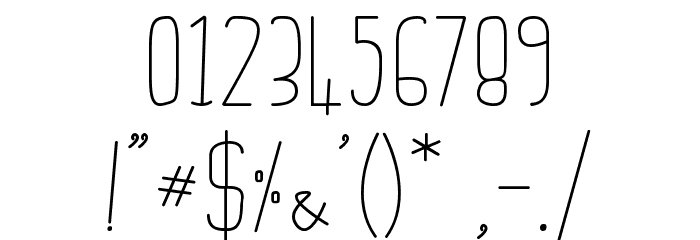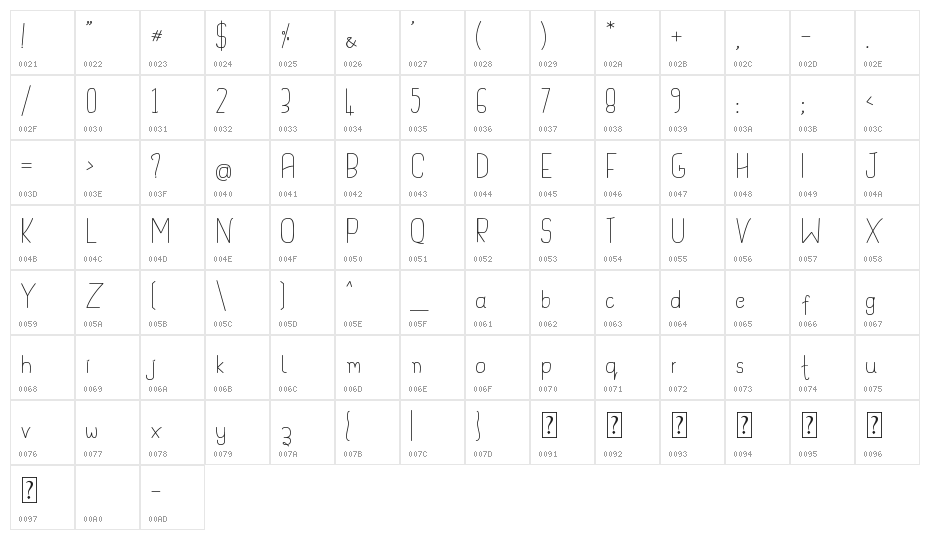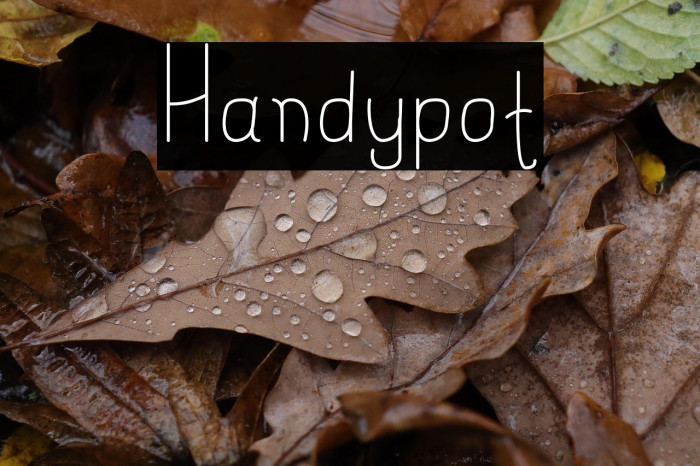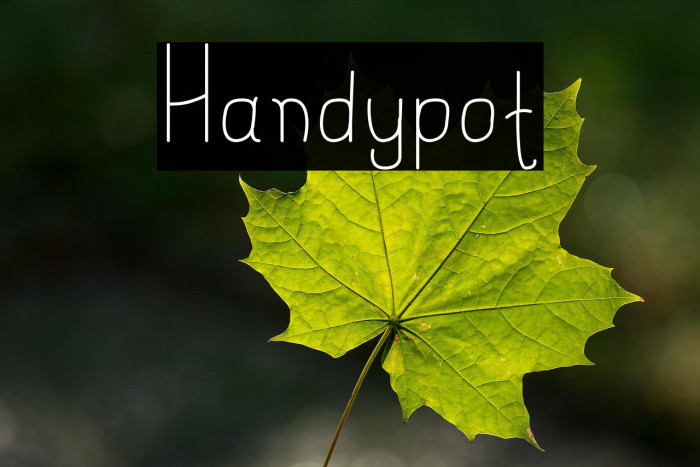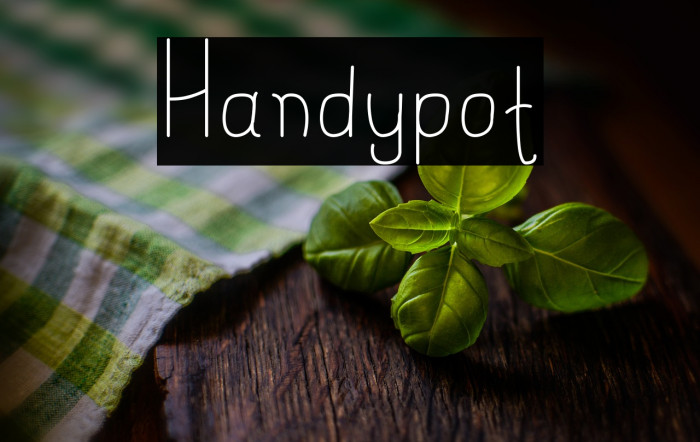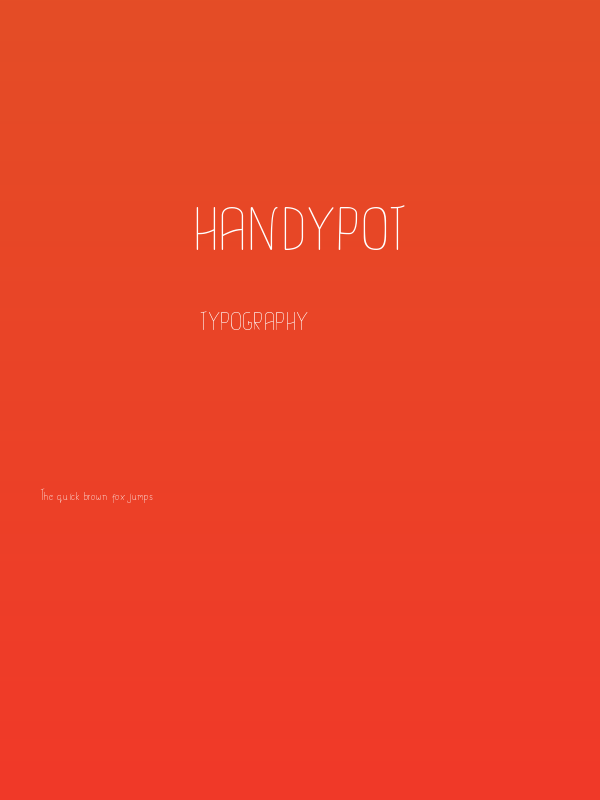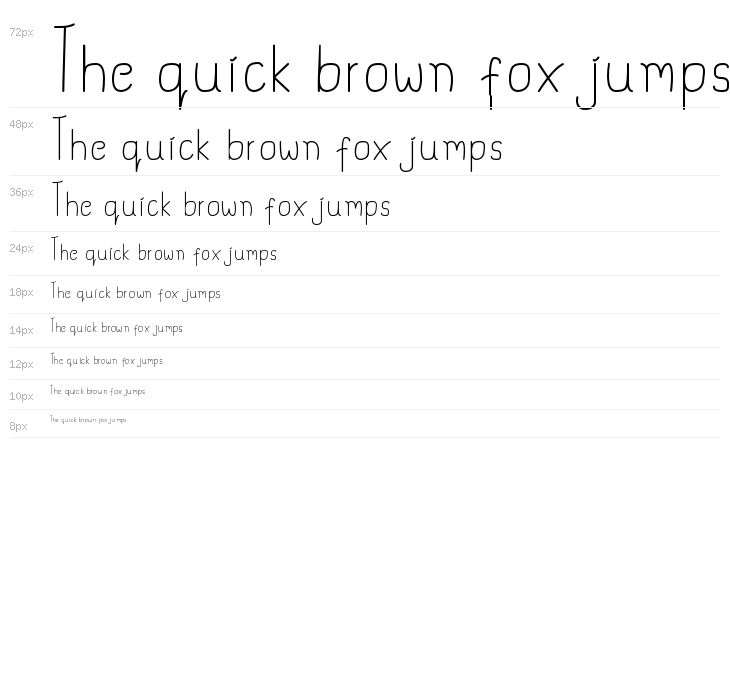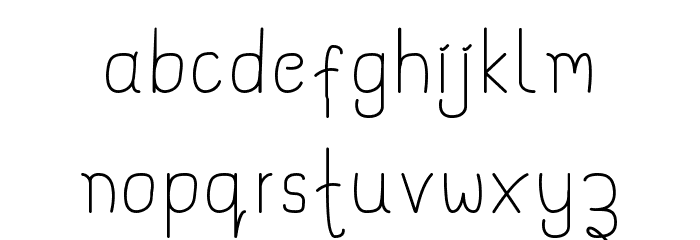
Handypot Font
Handypot Description
This font features a playful and whimsical design with thin, elongated strokes that give it a light and airy feel. The characters are slightly irregular, adding a hand-drawn quality that enhances its charm. The uppercase letters are tall and narrow, while the lowercase letters maintain a consistent height, creating a harmonious balance. Numbers and special characters follow the same style, ensuring uniformity across all elements. The font's unique personality makes it suitable for creative and informal projects.
| Proposed Projects | Ideal for children's books, greeting cards, playful branding, and creative posters. |